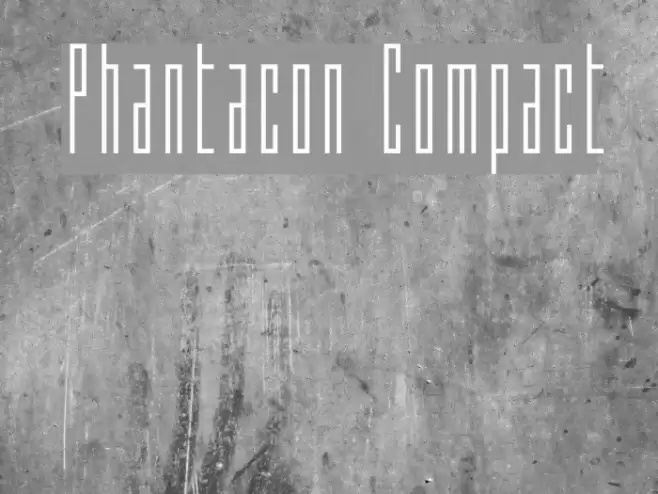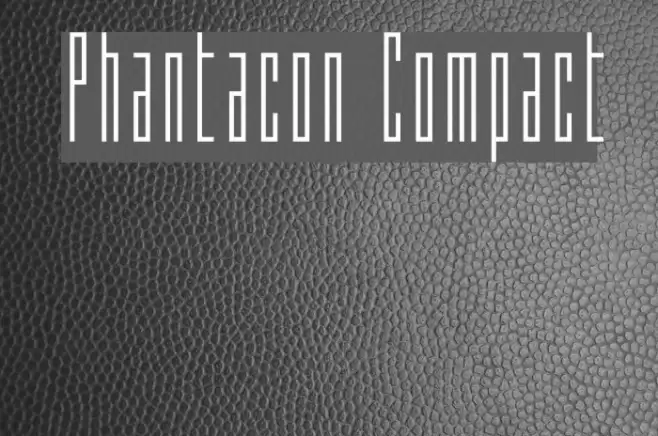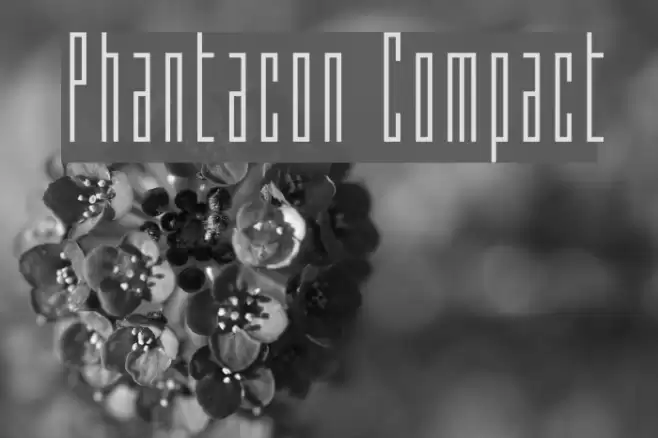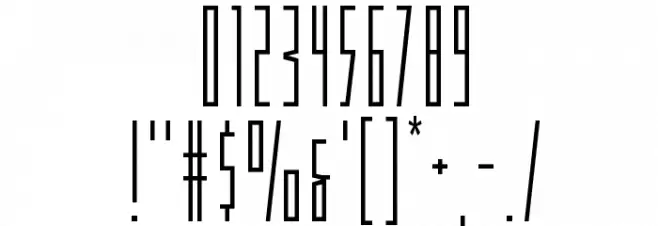
Phantacon Compact Font
Phantacon Compact Description
This font features a tall, narrow design with a distinctly modern and futuristic aesthetic. The characters are elongated and have a uniform stroke width, giving them a sleek and streamlined appearance. The uppercase and lowercase letters maintain a consistent height, contributing to its compact and condensed style. The numerals and special characters follow the same design principles, ensuring a cohesive look across all glyphs. The overall design is minimalistic, with clean lines and a geometric structure that enhances its contemporary feel.
A modern, narrow font with a sleek, elongated design from Uncategorized fonts.
- Proposed Projects: Ideal for sci-fi themed projects, modern branding, posters, and digital interfaces.
- Character Spacing: Tight